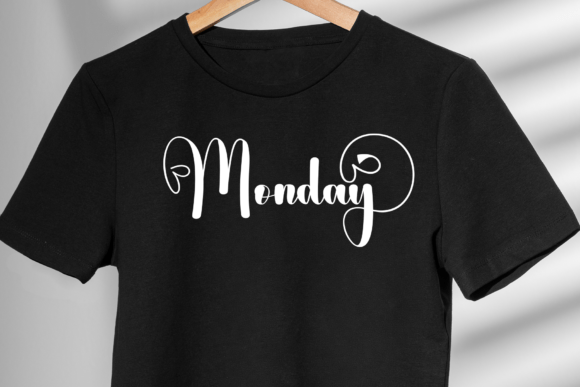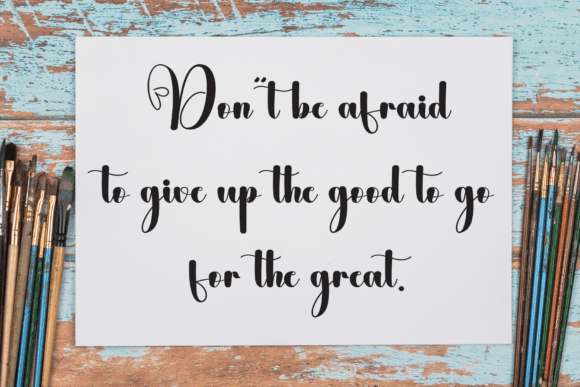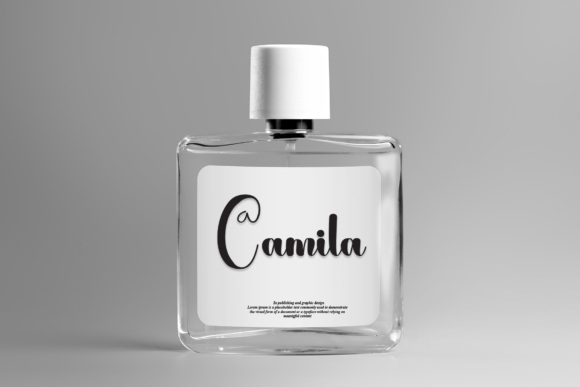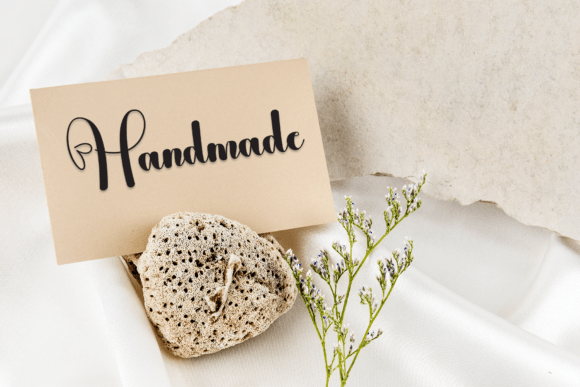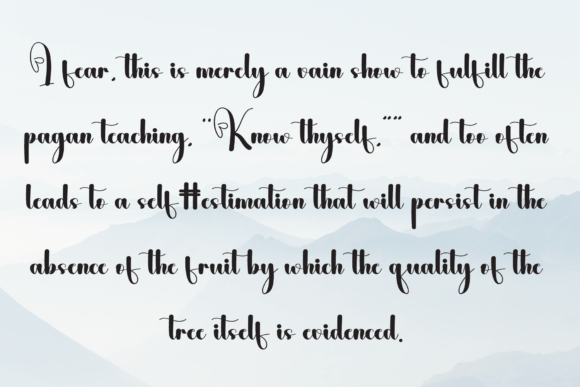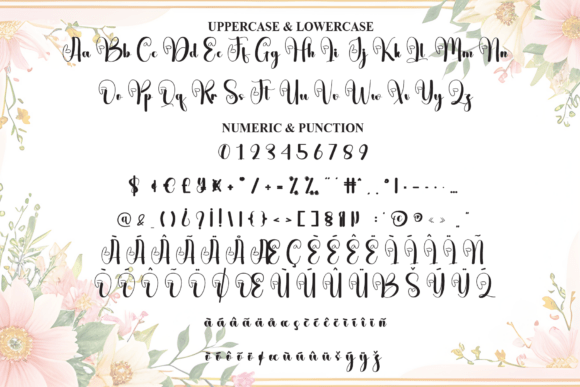
Introducing Autography Font: The Ultimate Charm for Your Designs
Are you looking for a font that can add a touch of whimsy and delight to your designs? Look no further than Autography Font, a handwritten display font that is sure to capture the hearts of designers and crafters alike. With its atmospherically cheerful and endearing style, this font is perfect for adding a sprinkle of spontaneity and a pinch of playfulness to any design.
The Charm of Autography Font
Autography Font is a beautifully crafted handwritten font that exudes a sense of fun and lightheartedness. Its flirtatiously fun and playful style makes it perfect for designs that require a touch of personality and whimsy. Whether you’re creating wedding invites, greeting cards, or any other type of design, Autography Font is sure to beautifully uplift your work and add a dash of joy to all lines it strikes.
Perfect for a Variety of Designs
One of the best things about Autography Font is its versatility. It’s perfect for a wide range of designs, from wedding invitations and greeting cards to posters, flyers, and more. Its sweet and friendly style makes it an excellent choice for designs that require a personal touch, such as:
What Makes Autography Font Special?
So, what sets Autography Font apart from other fonts? Here are just a few things that make it special:
- Handwritten style: Autography Font has a beautifully handwritten style that’s perfect for adding a personal touch to your designs.
- Cheerful and endearing: This font is atmospherically cheerful and endearing, making it perfect for designs that require a touch of whimsy and delight.
- Flirtatiously fun and lighthearted: Autography Font is flirtatiously fun and lighthearted, making it perfect for designs that require a playful touch.
- Effortlessly adds joy: This font effortlessly adds a sprinkle of spontaneity and a pinch of playfulness to your design palette, making it perfect for designs that require a dash of joy.
- Use it as a headline font: Autography Font is perfect for use as a headline font, where its playful and whimsical style can really shine.
- Pair it with a simple font: For body text, pair Autography Font with a simple font to create a beautiful contrast.
- Experiment with colors: Autography Font looks great in a variety of colors, so don’t be afraid to experiment and find the perfect hue for your design.
In conclusion, Autography Font is a beautifully crafted handwritten display font that’s perfect for adding a touch of whimsy and delight to your designs. Its atmospherically cheerful and endearing style makes it perfect for a wide range of designs, from wedding invitations and greeting cards to posters and flyers. With its flirtatiously fun and lighthearted style, Autography Font is sure to beautifully uplift any design and add a dash of joy to all lines it strikes.